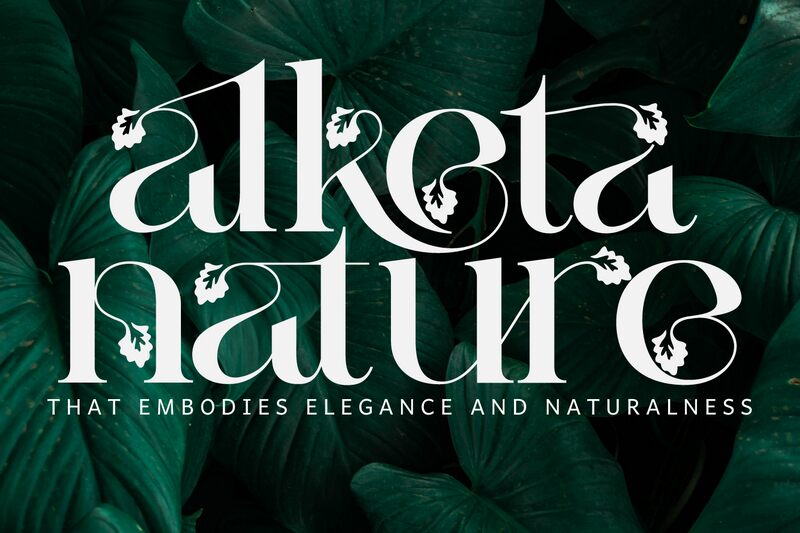
Alketa font by 177Studio is an elegant and artistic decorative display font. It is imbued with a classic influence that is combined with an ornamental style to give exceptional designs a sophisticated impression. Serifs and flourishes within character formation both represent essential font elements that are further accentuated by additional elements like lines and dots. Together, they manifest in splendid ways in well-designed logos, marvelous reports, and inspiring headlines.
Discover endless project opportunities when you use this free display font in different digital and print artwork like invitations, greeting cards, business cards, blogs, posters, fashion magazines, stationery items and other paper publications. The diverse usage possibilities also extend to websites for luxurious hotels & resorts as well as high-end jewelry brands marketing materials.